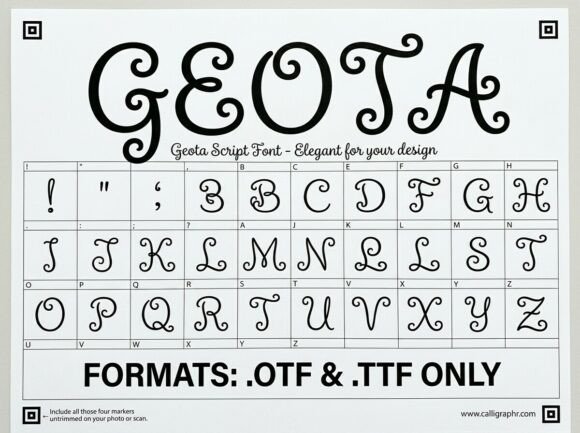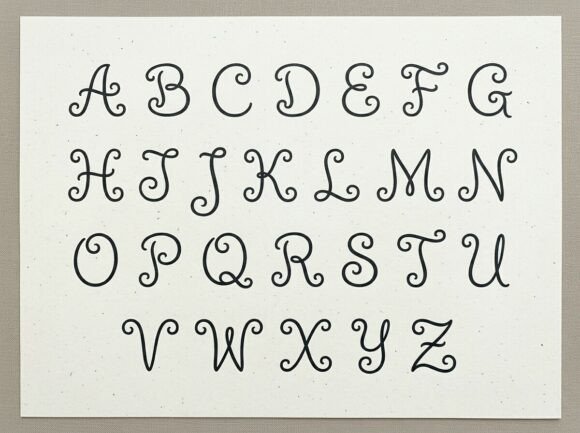
I still remember the countless hours I spent scrolling through font libraries, searching for the perfect typeface for a client’s wedding invitation. The project required a font that exuded elegance, sophistication, and a touch of playfulness. It was a daunting task, but then I stumbled upon Geota Font. ✨
Geota is an elegant script font that has been making waves in the design community, and for good reason. Its delicate, monolinear letterforms, sweeping loops, and rhythmic flourishes evoke a sense of handcrafted artistry that’s hard to find in digital fonts. In this article, we’ll dive into the world of Geota, exploring its features, uses, and what makes it an excellent choice for high-impact visual storytelling.
A Closer Look at Geota
Geota’s design is characterized by its balanced proportions and airy negative spaces, making it perfect for bespoke wedding invitations, boutique branding, high-end lifestyle magazines, and chic social media headers. Whether you’re crafting a logo for a boutique studio or a standout title for a creative portfolio, Geota delivers a sense of polished artisanal prestige and effortless beauty to every word.
- ✨ Elegant and sophisticated design that’s perfect for high-end projects
- ✅ Delicate, monolinear letterforms with sweeping loops and flourishes
- ✅ Balanced proportions and airy negative spaces for optimal readability
- ✅ Extensive OpenType features, including glyphs and stylistic alternates
- ⚠️ Limited use in body text due to its elegant, yet delicate design
- 🤔 May require adjustments for optimal kerning and tracking
The Story Behind Geota
Geota was designed by a team of typographers who sought to create a font that would evoke the sense of handcrafted artistry found in traditional calligraphy. Inspired by the flowing lines and rhythmic flourishes of handwritten scripts, Geota was crafted to bring a touch of elegance and sophistication to digital designs.
Q: Can I use Geota for body text?
A: While Geota is an elegant font, its delicate design makes it more suitable for headlines and titles. However, you can experiment with using it for short paragraphs or captions.
Q: Does Geota support OpenType features?
A: Yes, Geota supports OpenType features, including glyphs, stylistic alternates, and ligatures. You can access these features in compatible design software, such as Adobe Creative Cloud.